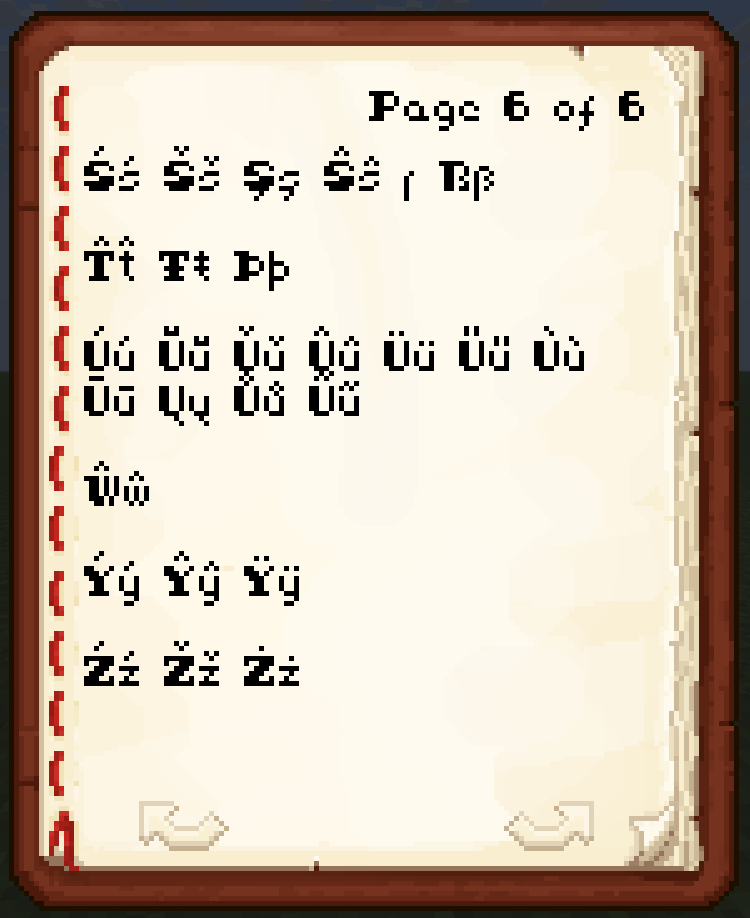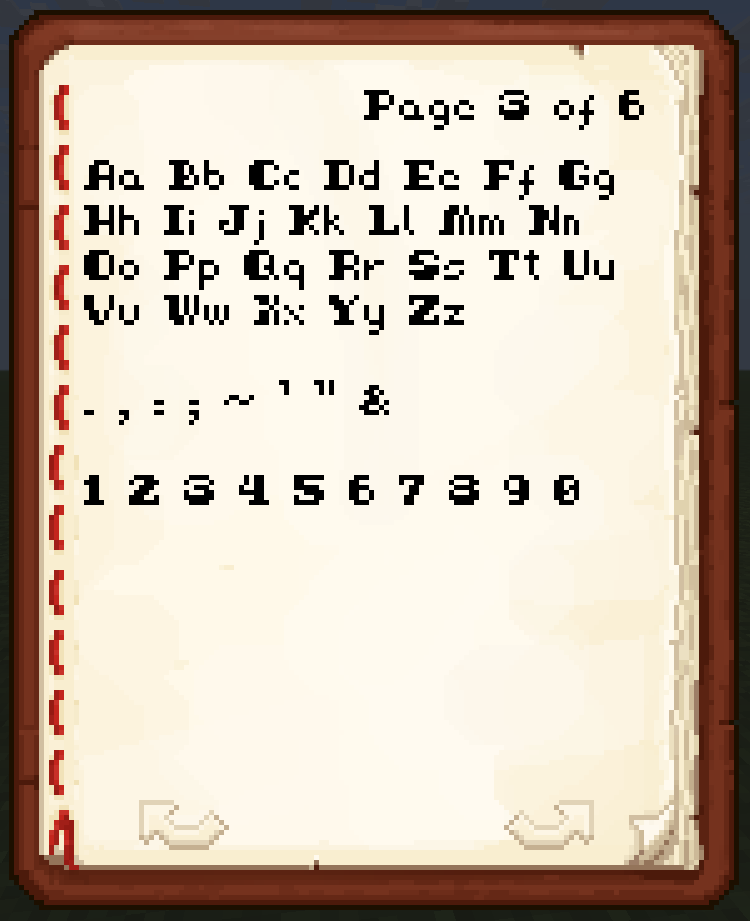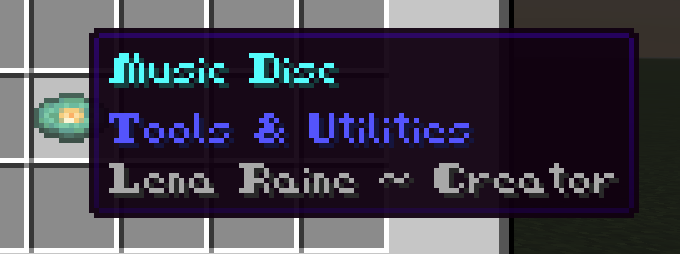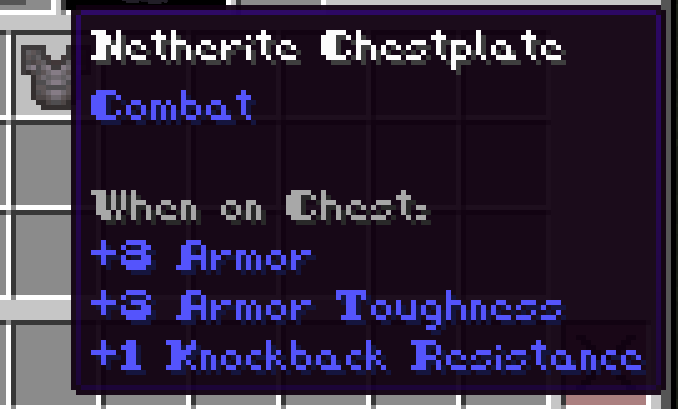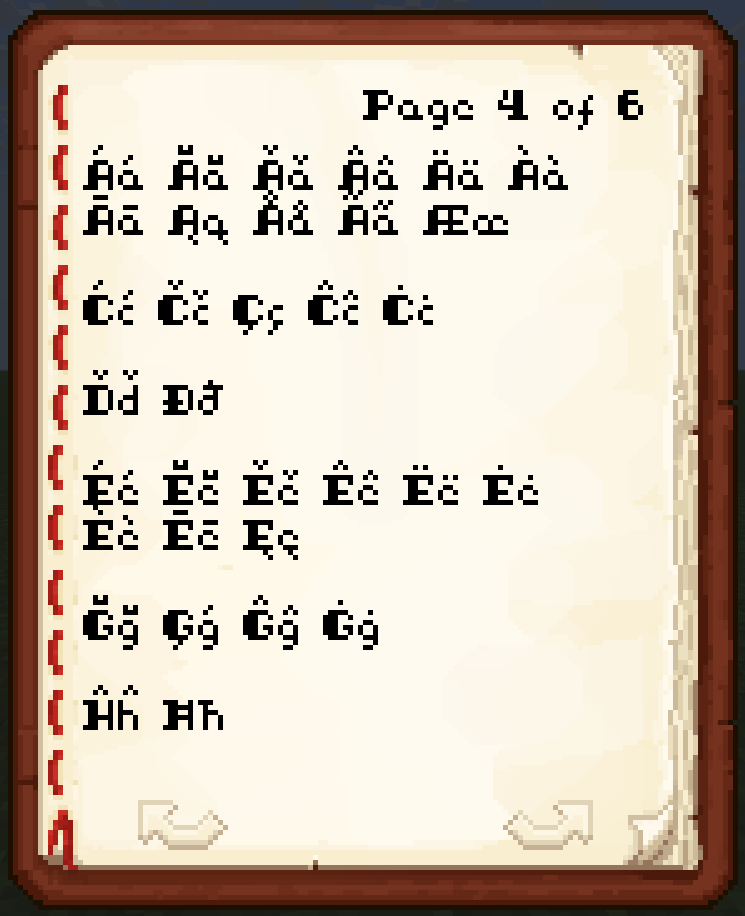
Freaky Serif Font
A bit of an old school take on the default font
Splashtext
Base Font
Diacritics page1
Diacritics page2
Diacritics page3
Game Menu
Item Count
Item Description
Music Disc
Advancement